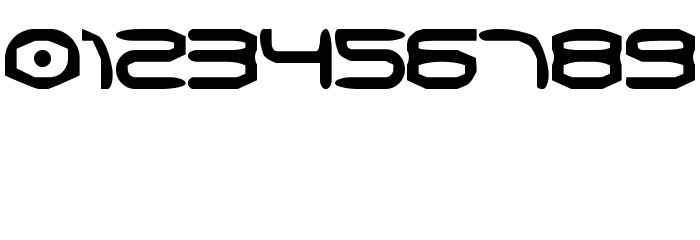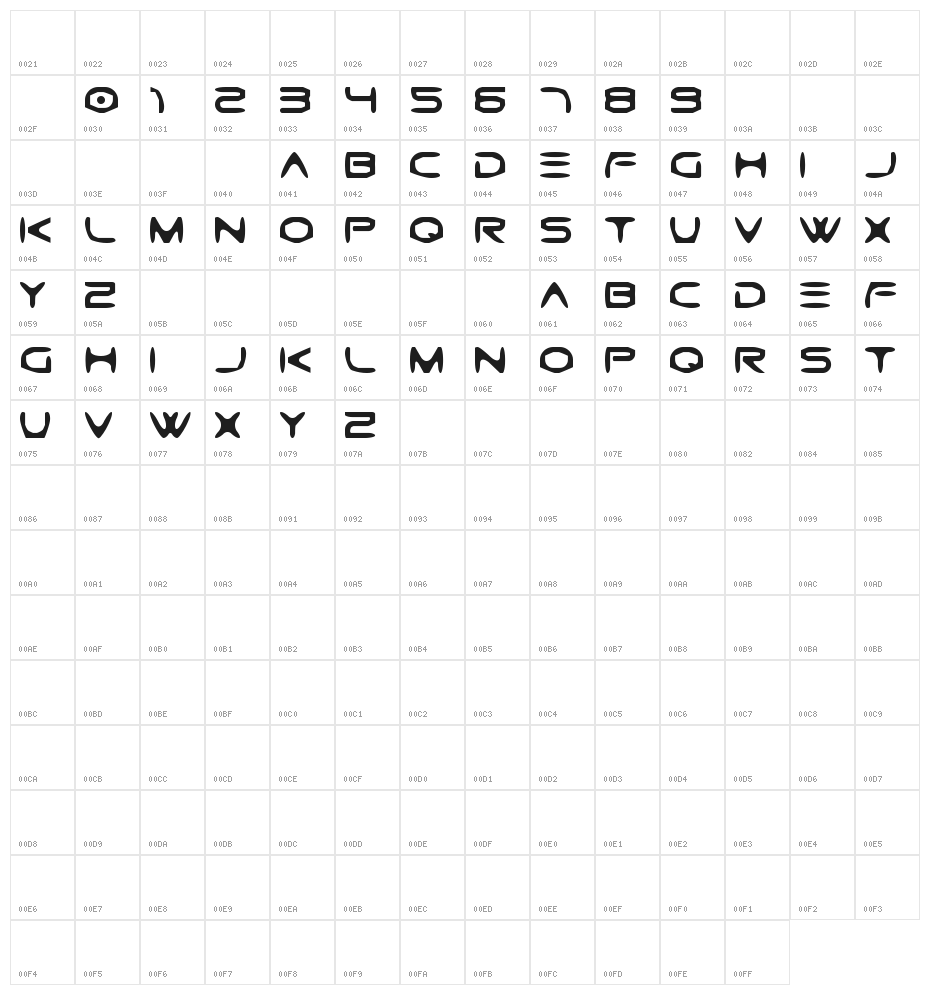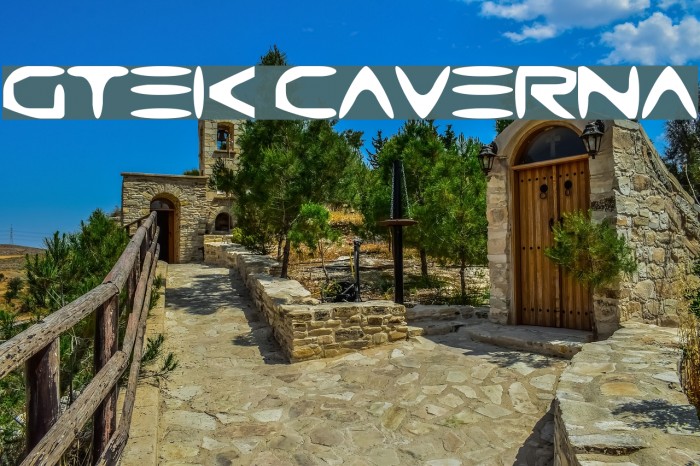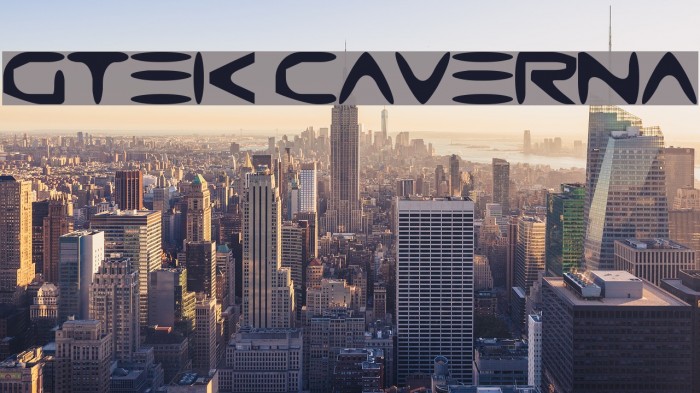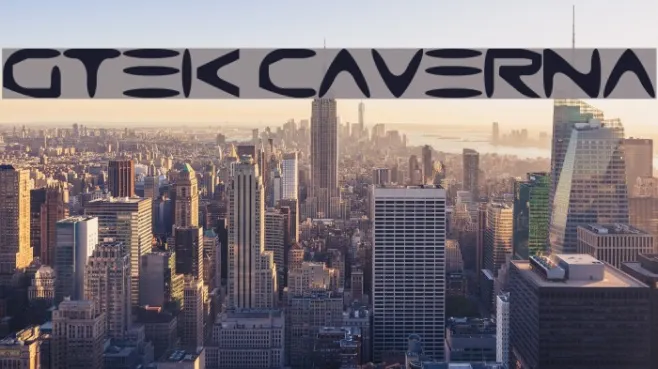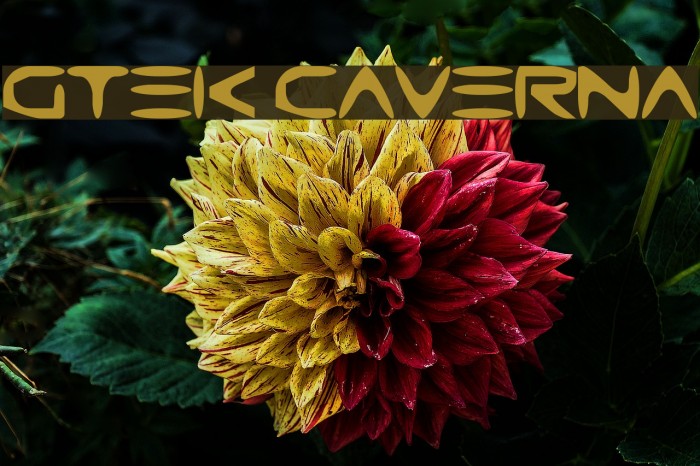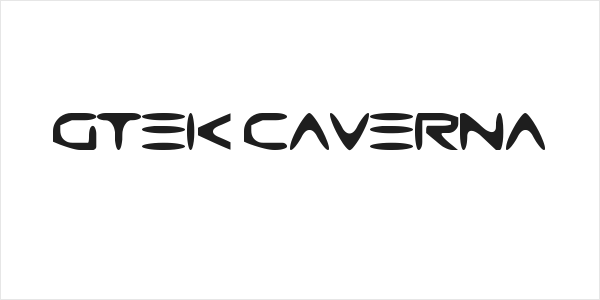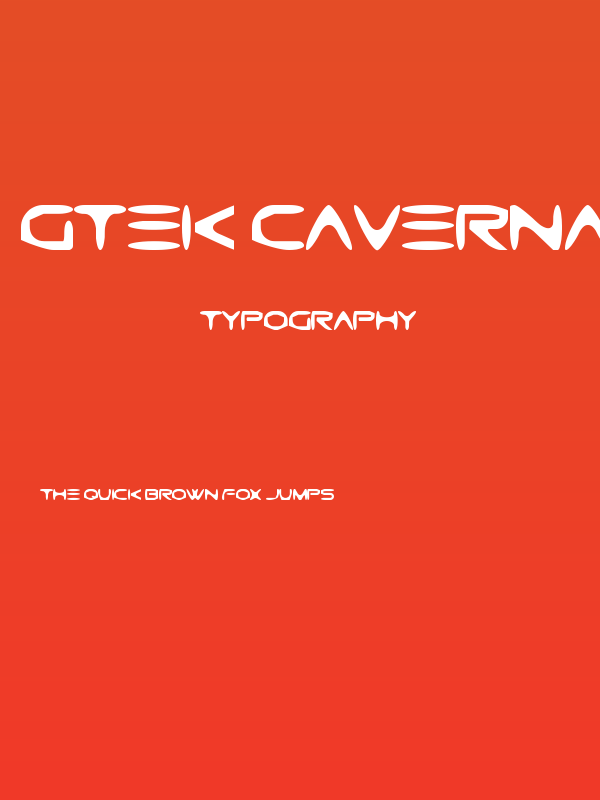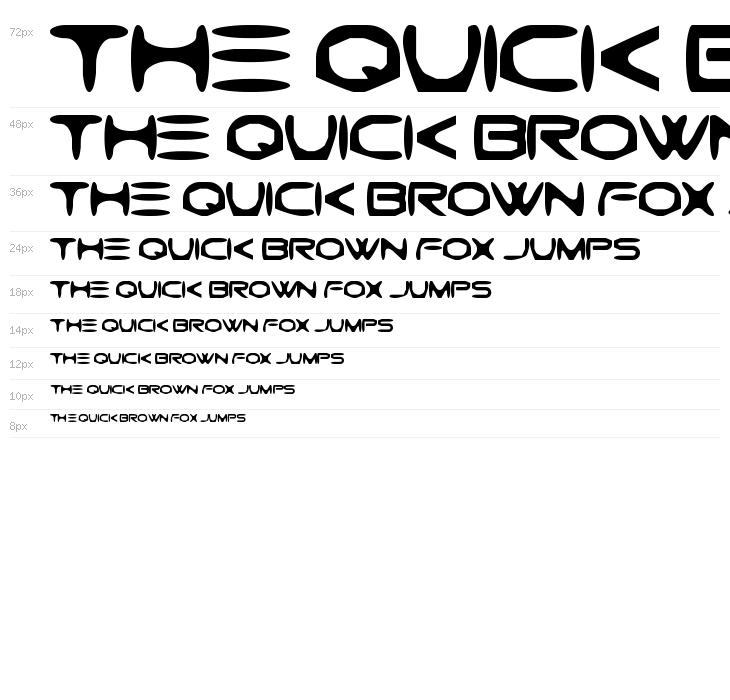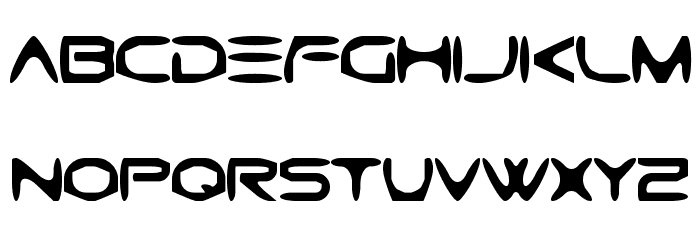
Gtek Caverna Font
Gtek Caverna Description
This font features a futuristic and geometric design with bold, rounded shapes. The characters are crafted with a unique, almost stencil-like appearance, where certain sections of each letter are disconnected, creating a dynamic and modern look. The uppercase letters are consistent in height, while the numbers maintain a similar style, ensuring uniformity across the font. The design is eye-catching and suitable for projects that require a contemporary and innovative aesthetic.
| Proposed Projects | Ideal for sci-fi themed posters, technology branding, video game titles, and modern advertising campaigns. |